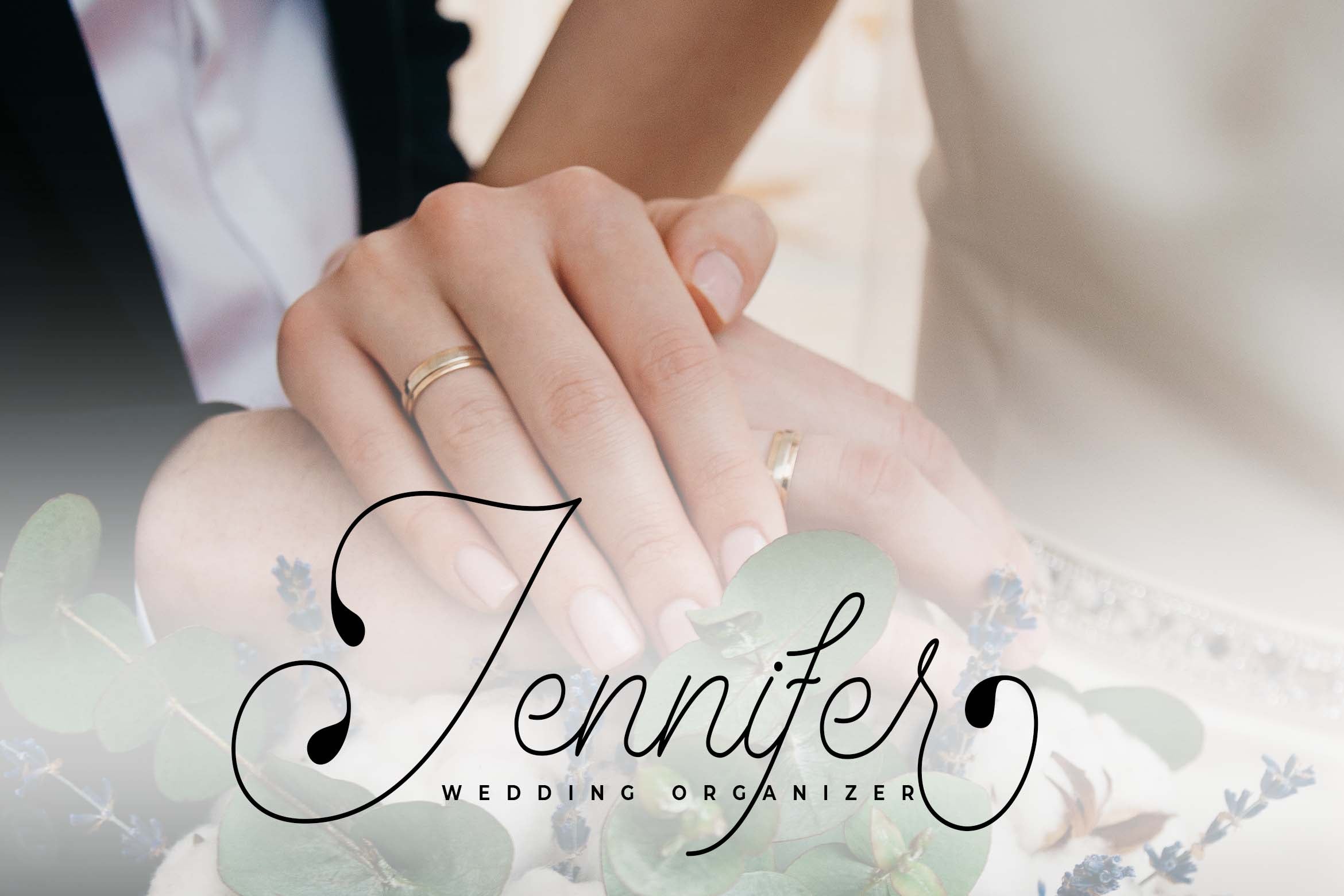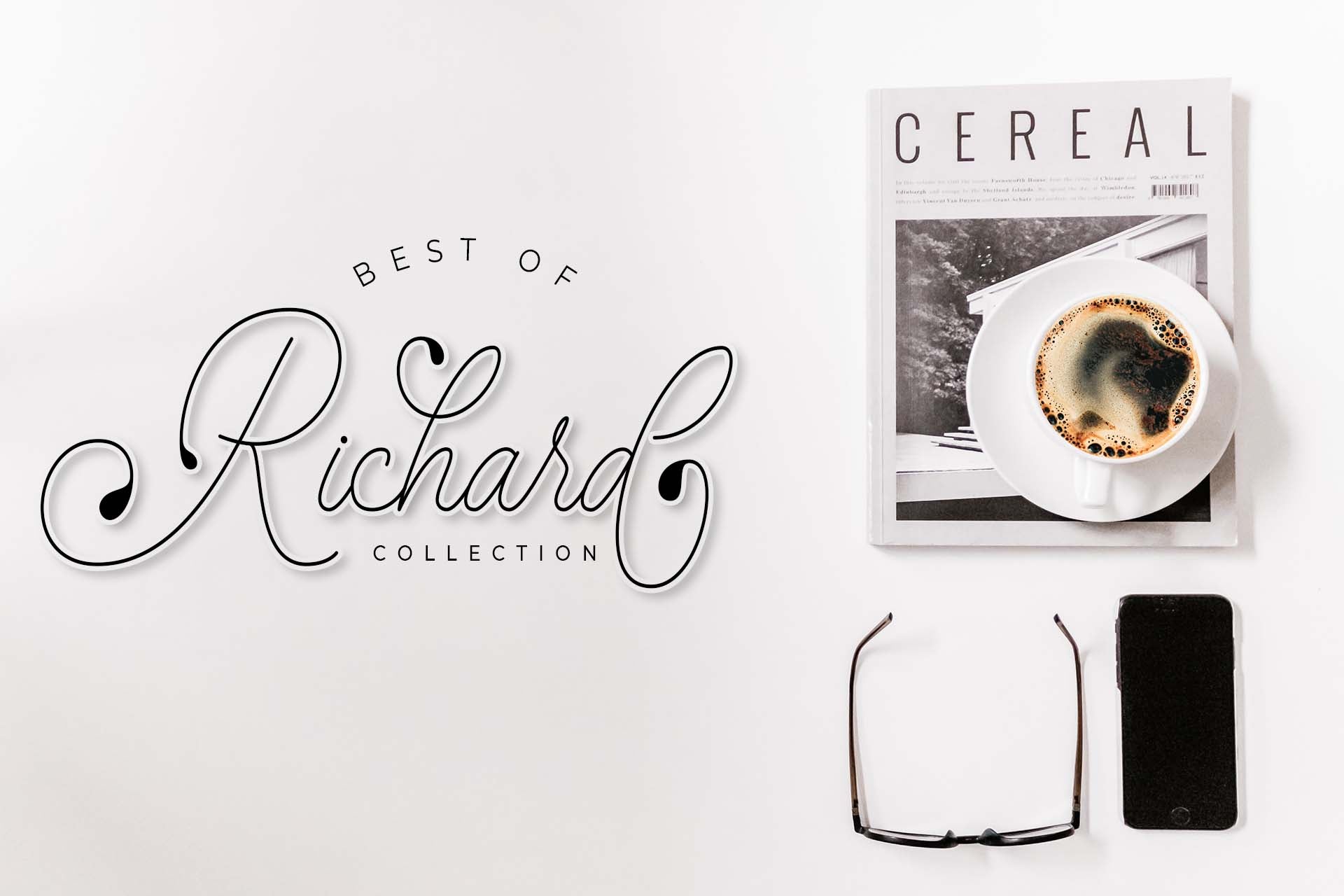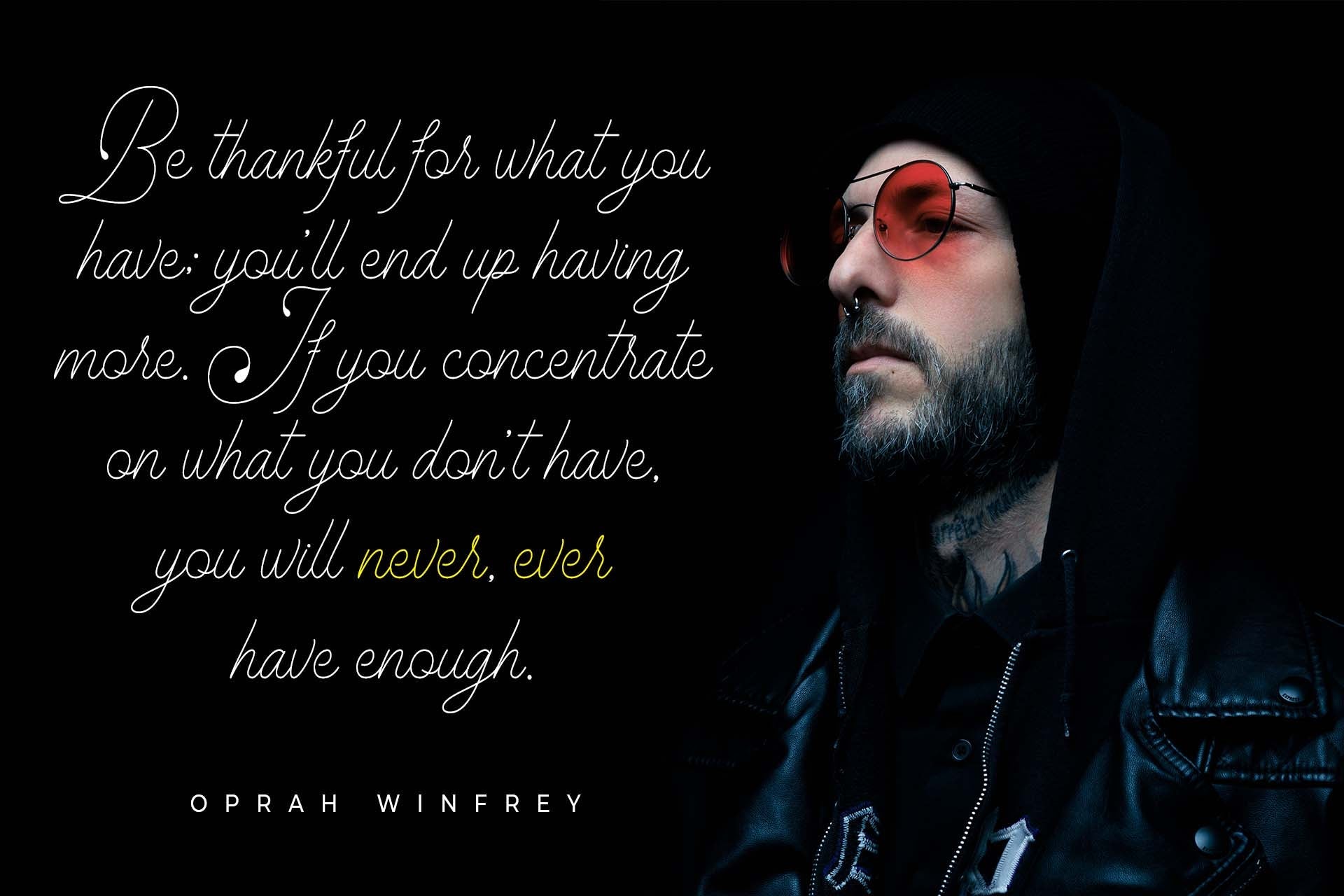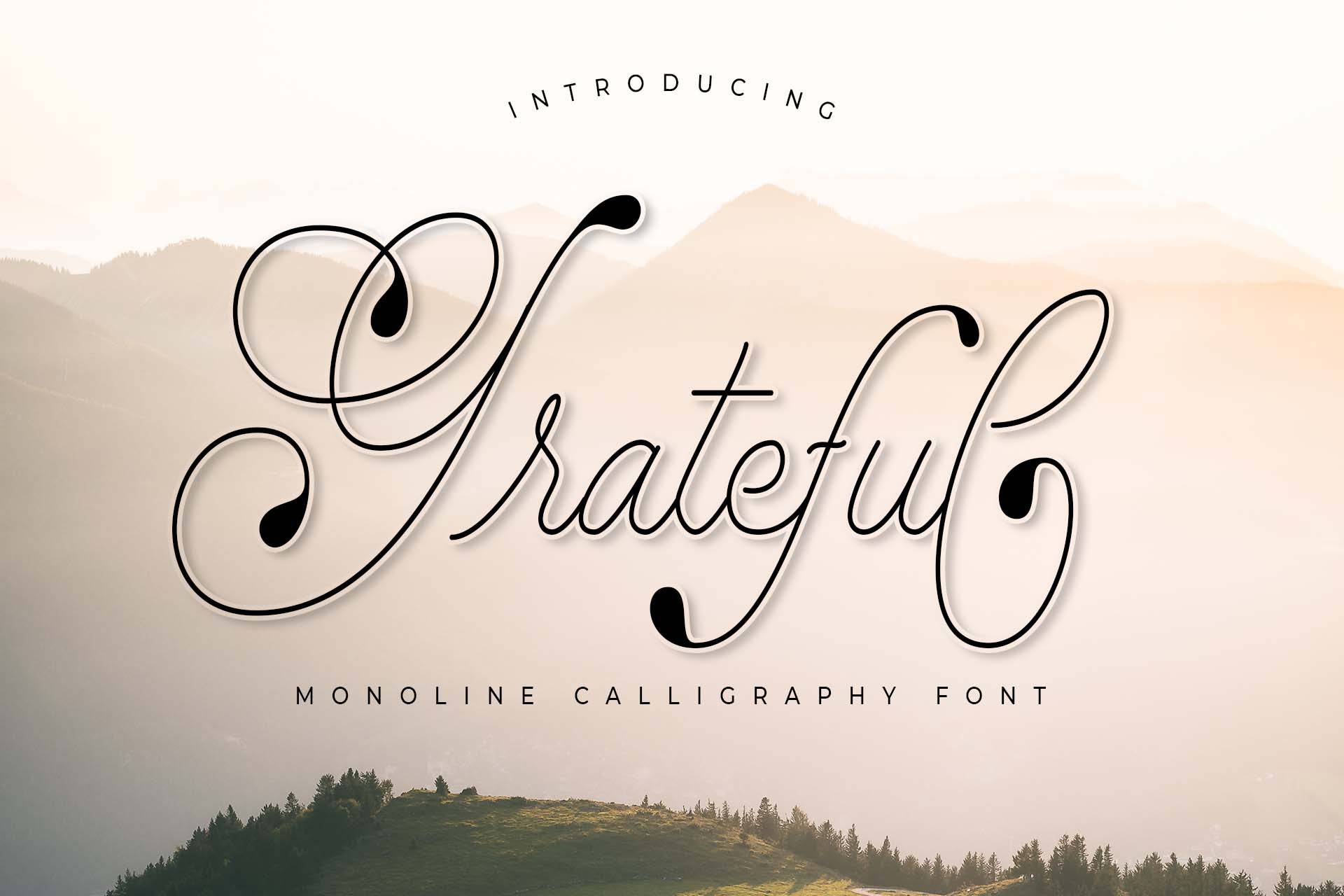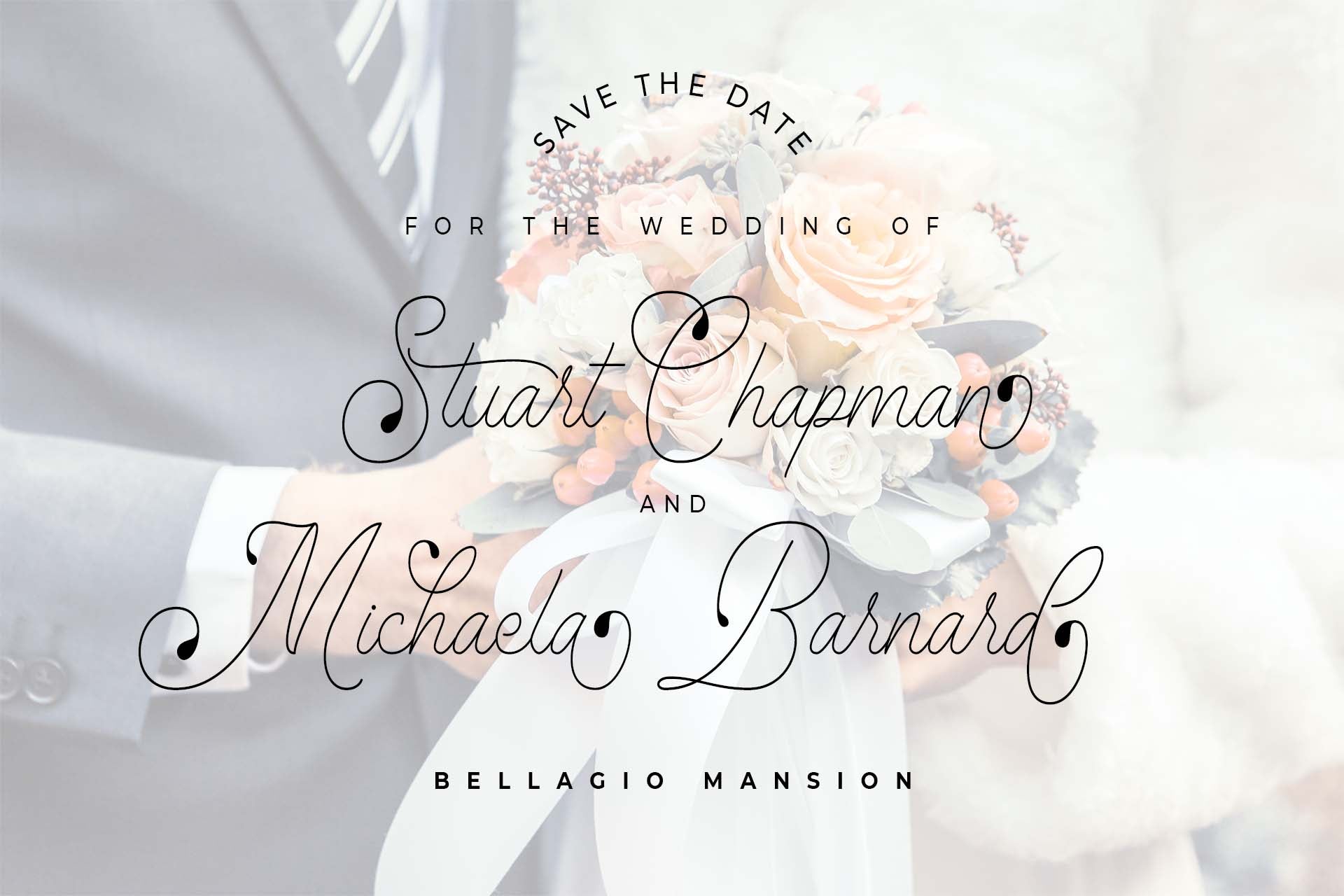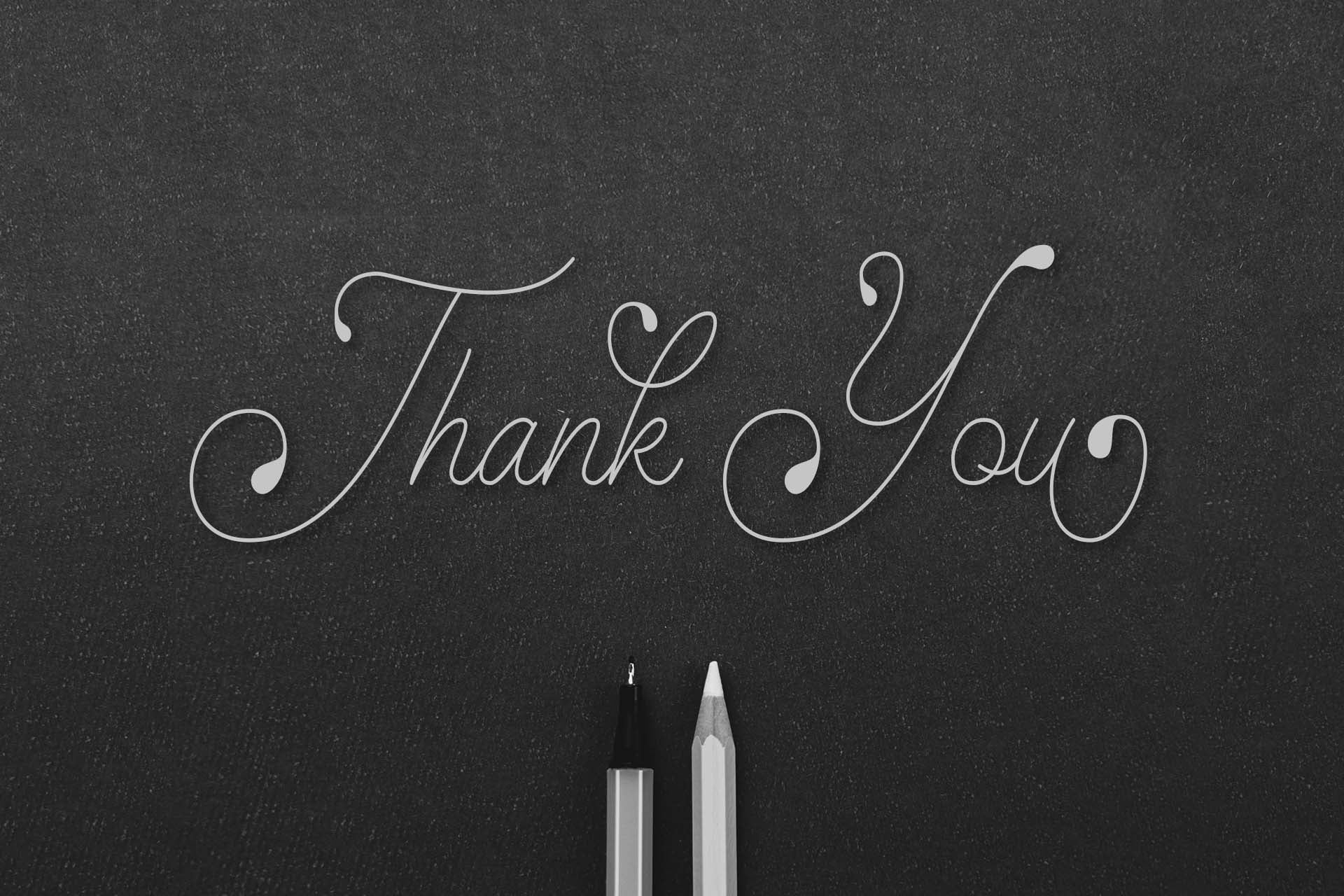
Grateful
About Grateful
Grateful is a cute and dainty monoline font, described by a refined touch. Fall in love with its distinct and timeless style and use it to create spectacular designs!